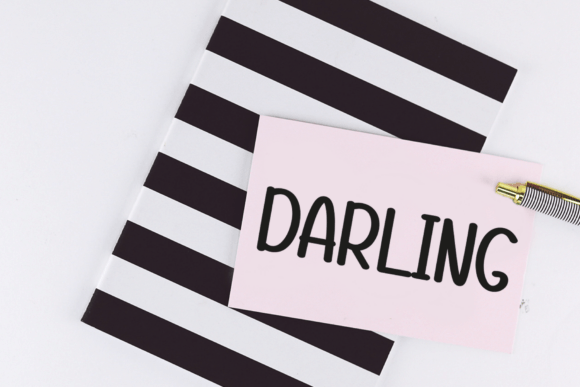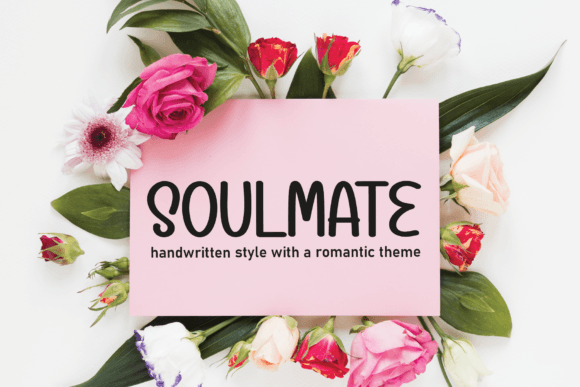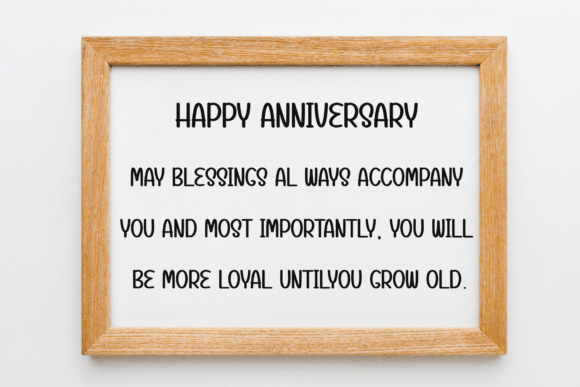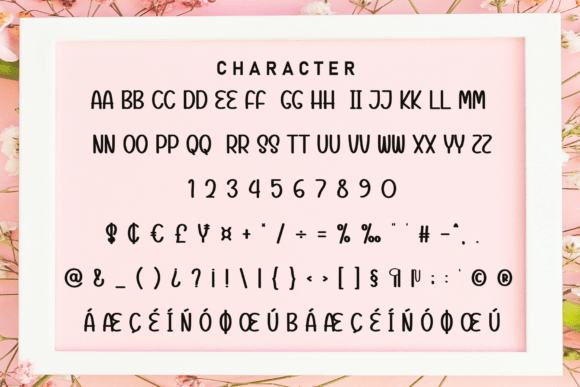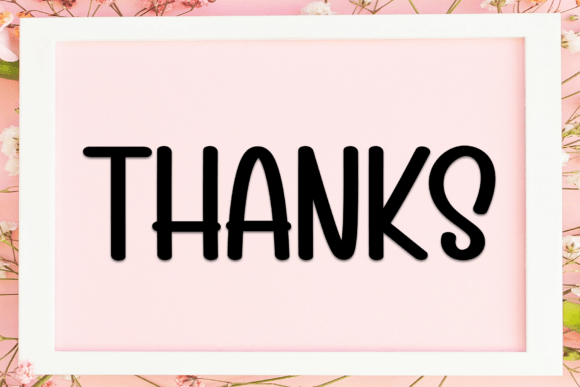
Daddy Samantha Font: The Perfect Handwritten Font for Your Design Projects
Are you looking for a font that can add a touch of warmth and personality to your design projects? Look no further than Daddy Samantha Font. This charming handwritten font is filled with a sense of heartfelt perfection, making it perfect for a variety of design applications. In this article, we’ll take a closer look at Daddy Samantha Font and explore its features, benefits, and uses.
What is Daddy Samantha Font?
Daddy Samantha Font is a beautiful handwritten font that is designed to evoke a sense of relaxation and comfort. Its smooth strokes and organic lines create a natural and effortless look that is perfect for designs that require a personal touch. The font is highly legible and versatile, making it suitable for a wide range of design projects, from branding and invitations to social media graphics and more.
Features of Daddy Samantha Font
Daddy Samantha Font has several features that make it an excellent choice for designers and crafters. Some of its key features include:
- Smooth Strokes: The font features smooth, flowing strokes that create a natural and organic look.
- Organic Lines: The font’s lines are highly organic, giving it a relaxed and effortless feel.
- High Legibility: The font is highly legible, making it perfect for designs that require clear and easy-to-read text.
- Versatility: The font is highly versatile and can be used for a wide range of design projects.
Benefits of Using Daddy Samantha Font
There are several benefits to using Daddy Samantha Font in your design projects. Some of the benefits include:
- Unique Look: The font has a unique and distinctive look that will help your designs stand out from the crowd.
- Emotional Connection: The font’s warm and personal feel can help create an emotional connection with your audience.
- Flexibility: The font is highly flexible and can be used for a wide range of design projects.
- Ease of Use: The font is easy to use and can be easily integrated into your design workflow.
Uses of Daddy Samantha Font
Daddy Samantha Font is a highly versatile font that can be used for a wide range of design projects. Some of the most popular uses for the font include:
- Branding: The font is perfect for branding projects that require a personal and unique touch.
- Invitations: The font is ideal for invitations, such as wedding invitations, birthday invitations, and more.
- Social Media Graphics: The font is perfect for social media graphics, such as Facebook posts, Instagram posts, and more.
- Packaging: The font can be used for packaging design, such as labels, tags, and more.
Tips for Using Daddy Samantha Font
Here are some tips for using Daddy Samantha Font in your design projects:
- Use it for Headlines: The font is perfect for headlines and titles, where its unique look and feel can really shine.
- Pair it with Other Fonts: The font can be paired with other fonts to create a unique and interesting look.
- Experiment with Colors: The font looks great in a variety of colors, so don’t be afraid to experiment and find the perfect color for your design.
- Use it for Body Text: The font is highly legible, making it perfect for body text and paragraphs.
Daddy Samantha Font is a charming handwritten font that is perfect for designers and crafters looking to add a touch of warmth and personality to their design projects. Its smooth strokes and organic lines evoke a relaxed atmosphere, making it perfect for a variety of design applications. With its high legibility, versatility, and unique look, Daddy Samantha Font is an excellent choice for anyone looking to create beautiful and effective designs.